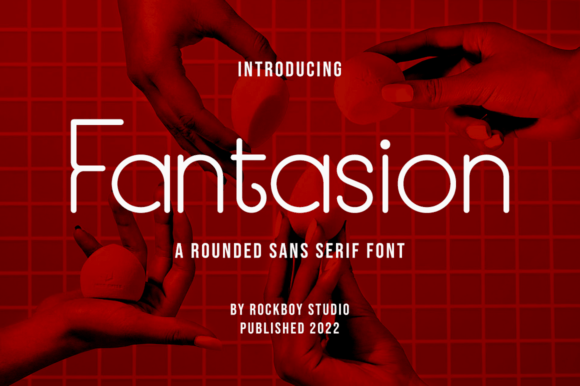
Introducing Fantasion Font, the ultimate choice for all your typography needs! This elegant sans serif font, created by RockboyStudio, is here to revolutionize your design game. With its PUA encoding, accessing the vast array of stunning glyphs and swashes has never been easier. Prepare to embark on a creative journey like no other!
Fantasion Font is more than just a typeface; it is a gateway to endless inspiration. Crafted with meticulous attention to detail, this font effortlessly blends sophistication with modernity. Its sleek lines and clean edges exude a sense of elegance and professionalism that will captivate any viewer.
Are you a book lover searching for the perfect font to adorn your favorite titles? Look no further! Fantasion Font is the best font for book titles, adding a touch of magic to every page. Its timeless appeal will transport readers into a world of enchantment, leaving them longing for more.
But the wonders of Fantasion Font don't stop there. Whether you're designing cards, creating a captivating brand identity, or labeling your products, this font has got you covered. It effortlessly adapts to any project, elevating your creations to new heights of visual brilliance.
Unleash your imagination and let Fantasion Font be your creative companion. With its extensive range of glyphs and swashes, you have the power to infuse your designs with a touch of whimsy or a hint of boldness. The possibilities are truly endless!
But why settle for ordinary when you can have extraordinary? Fantasion Font is not just another font; it's a masterpiece waiting to be unleashed. Its versatility knows no bounds, making it an essential tool for designers, artists, and creators alike. Stand out from the crowd and let your creativity soar with Fantasion Font by your side.